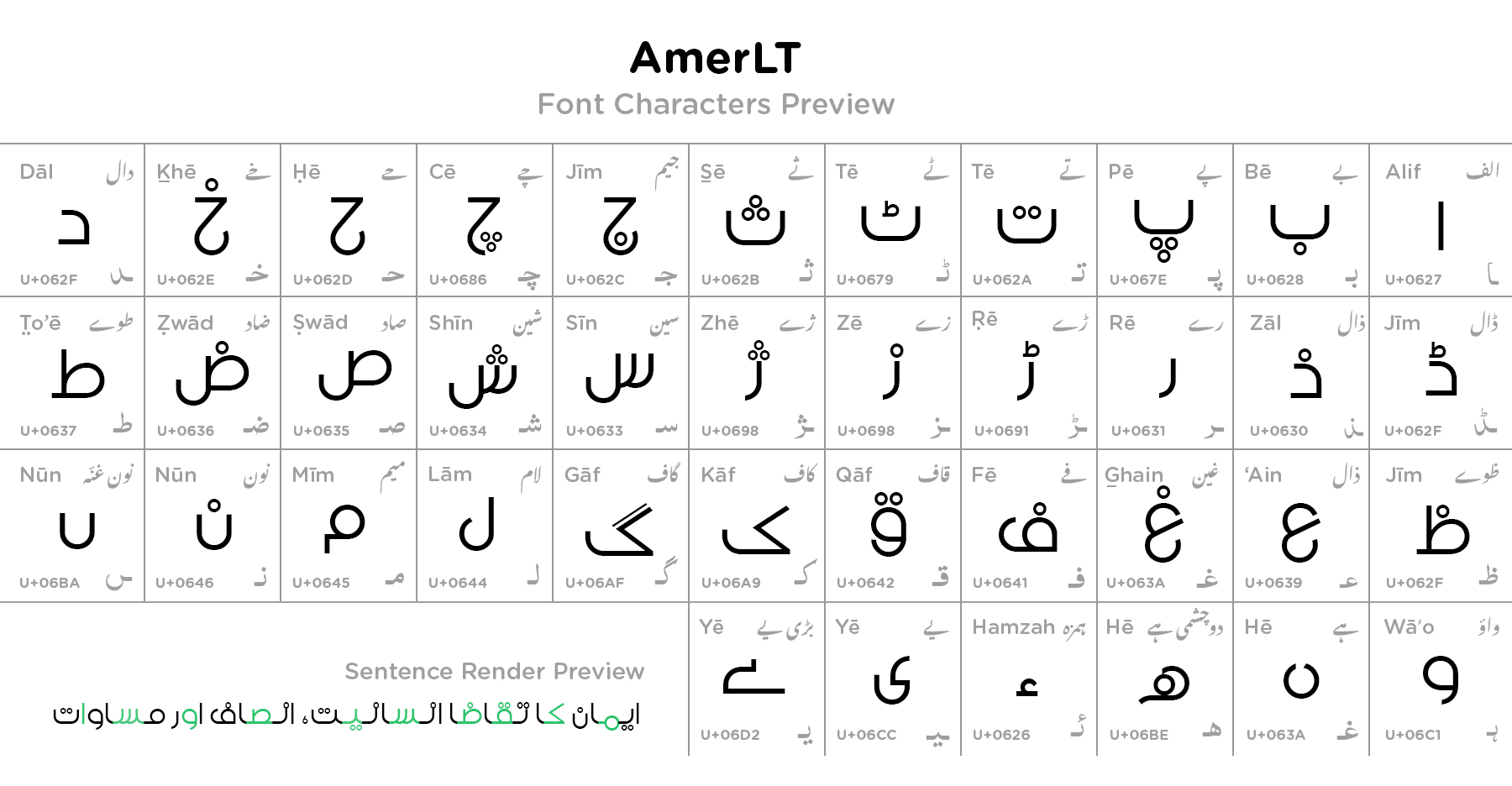
Amer LT is an OpenType-distributed modern Arabic headline font. Heidelberger Druckmaschinen AG is the exclusive licensing holder of the Amer trademark, which is registered in several countries through Linotype GmbH. With the inclusion of Latin glyphs from Kabel Book in this OpenType font, users may set text in Arabic and most Western European languages without having to switch fonts. Amer comprises the Arabic character set (CP 1256), which supports Arabic, Persian, and Urdu, as well as the Basic Latin character set (Western CP 1252 Latin 1/ANSI and Macintosh US Roman). Amer LT has a vast character set of 582 and a glyph count of 546. Together with a set of tabular European (Latin) numbers, the font also has tabular and proportional Arabic, Persian, and Urdu numerals. The AmerLT typeface is well-known for its readability, which makes Urdu script simple to read and write. It contains clear and well-defined letterforms, making sure the text is visible even at very small sizes. This sans-serif font has circular letters, smooth curves, and hollow dots making it perfect for a variety of texts and design purposes